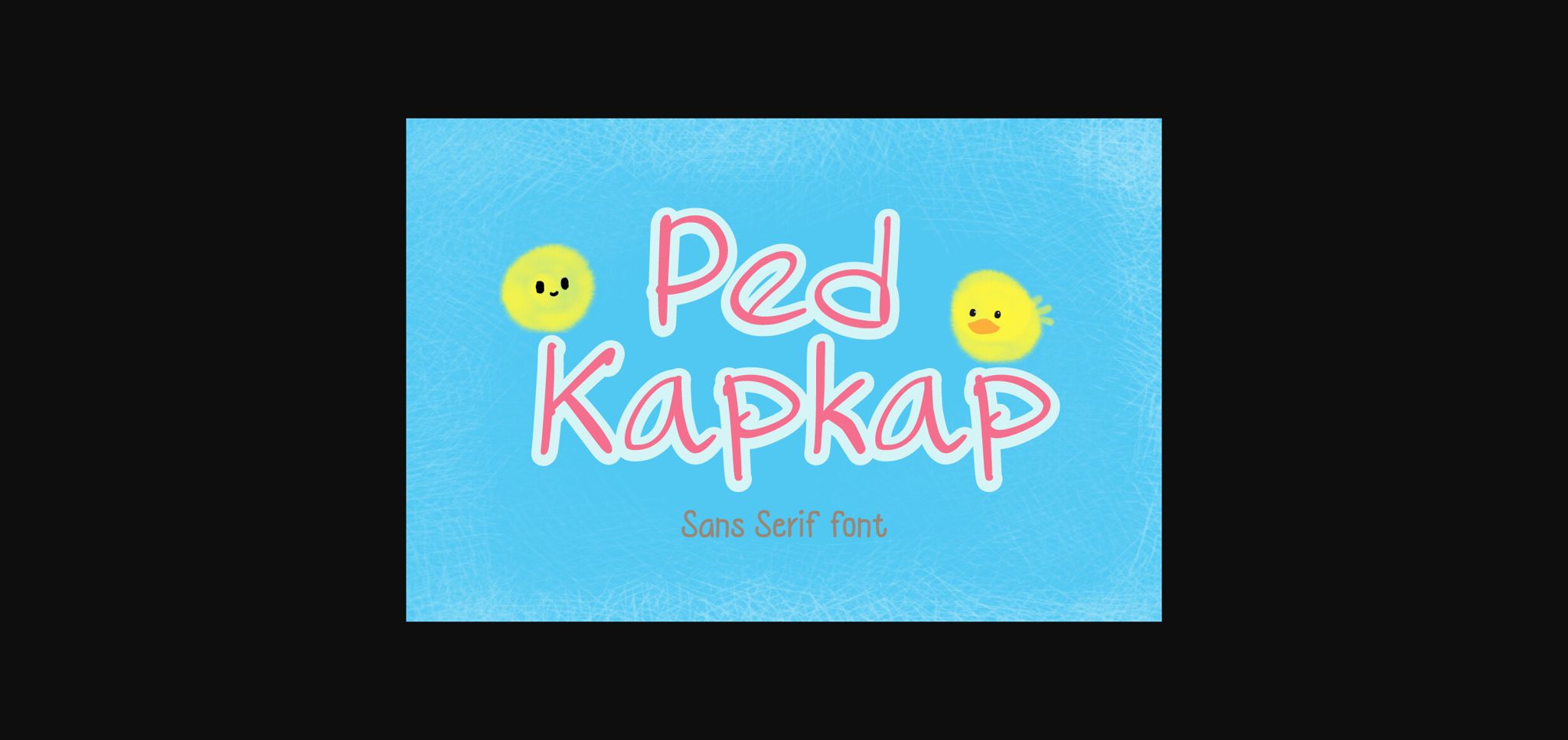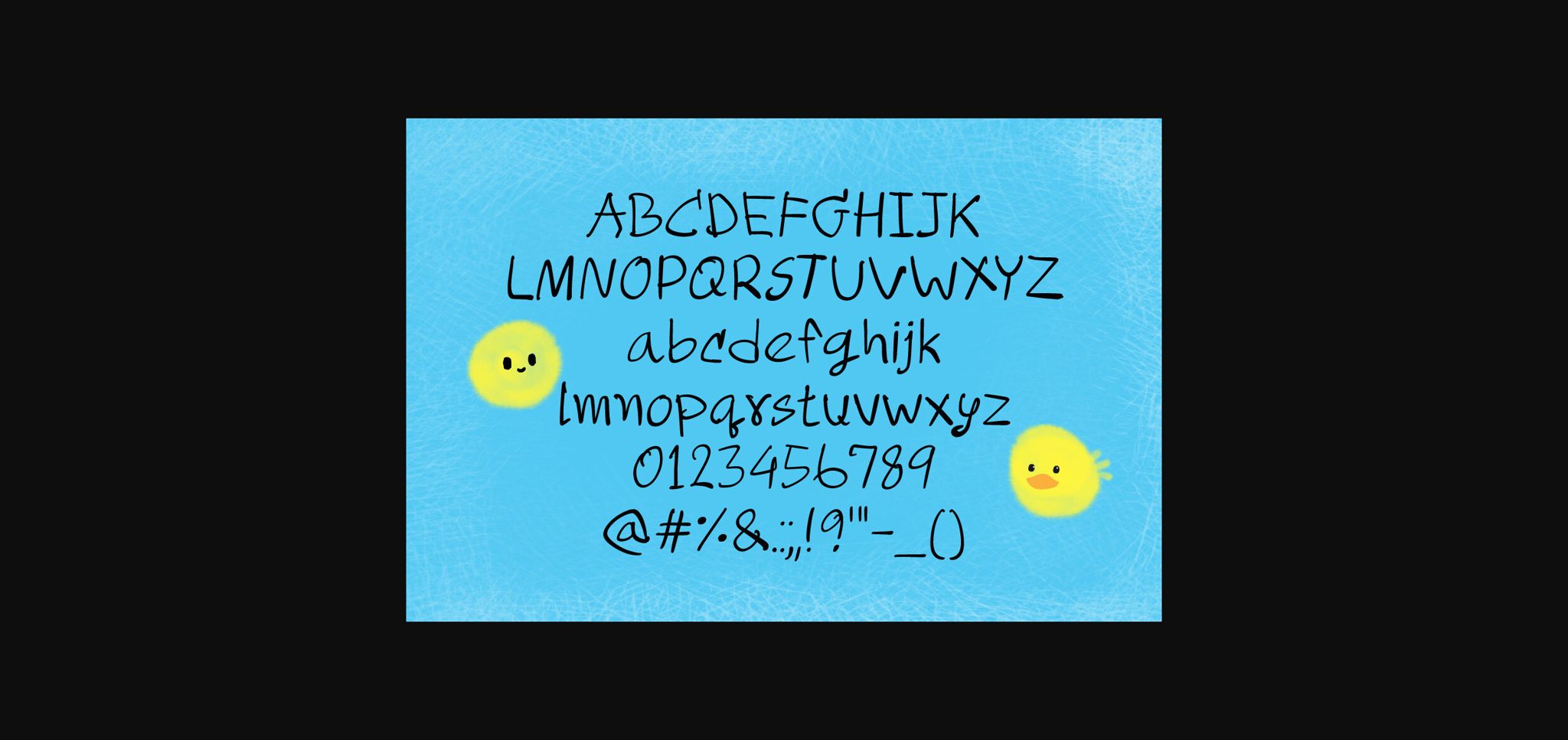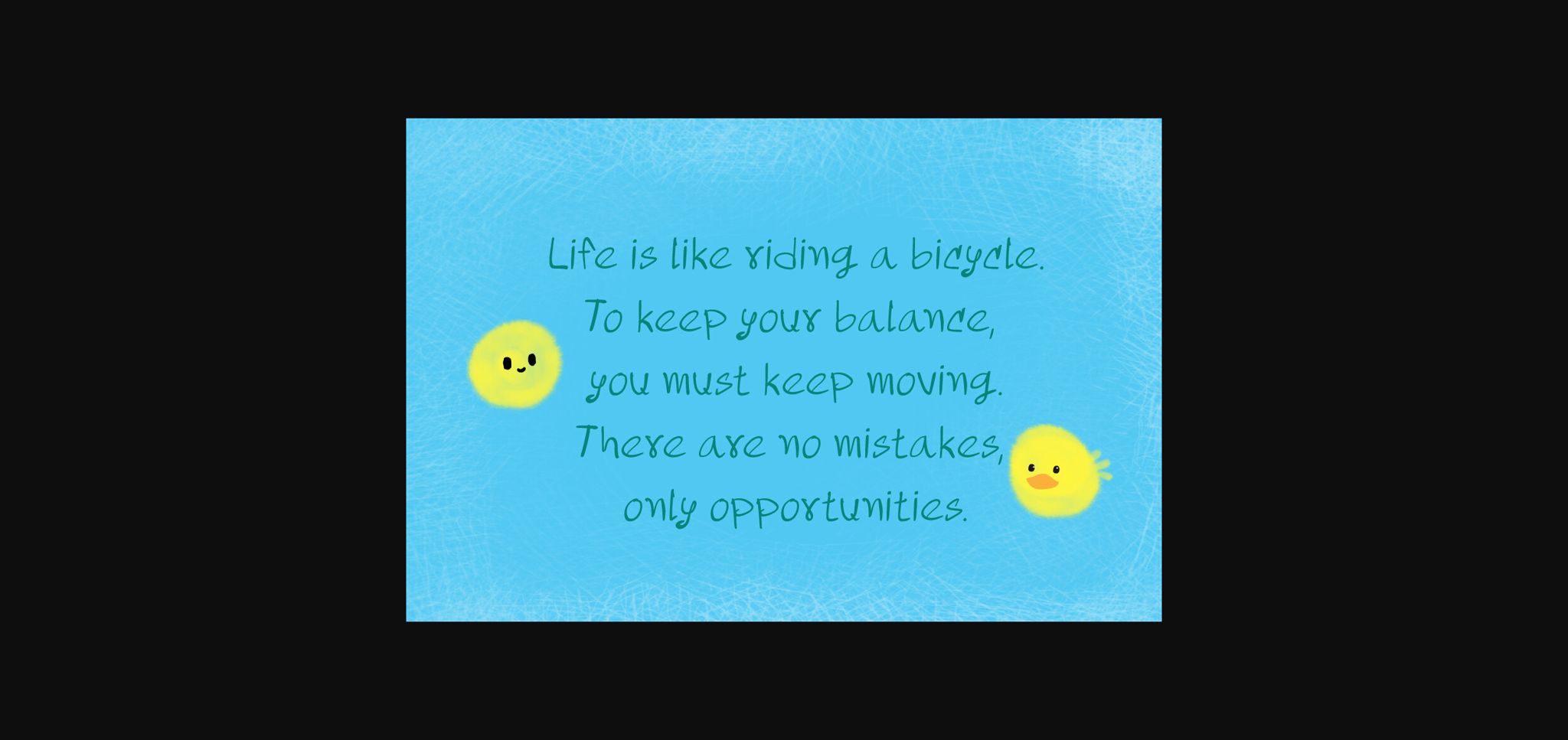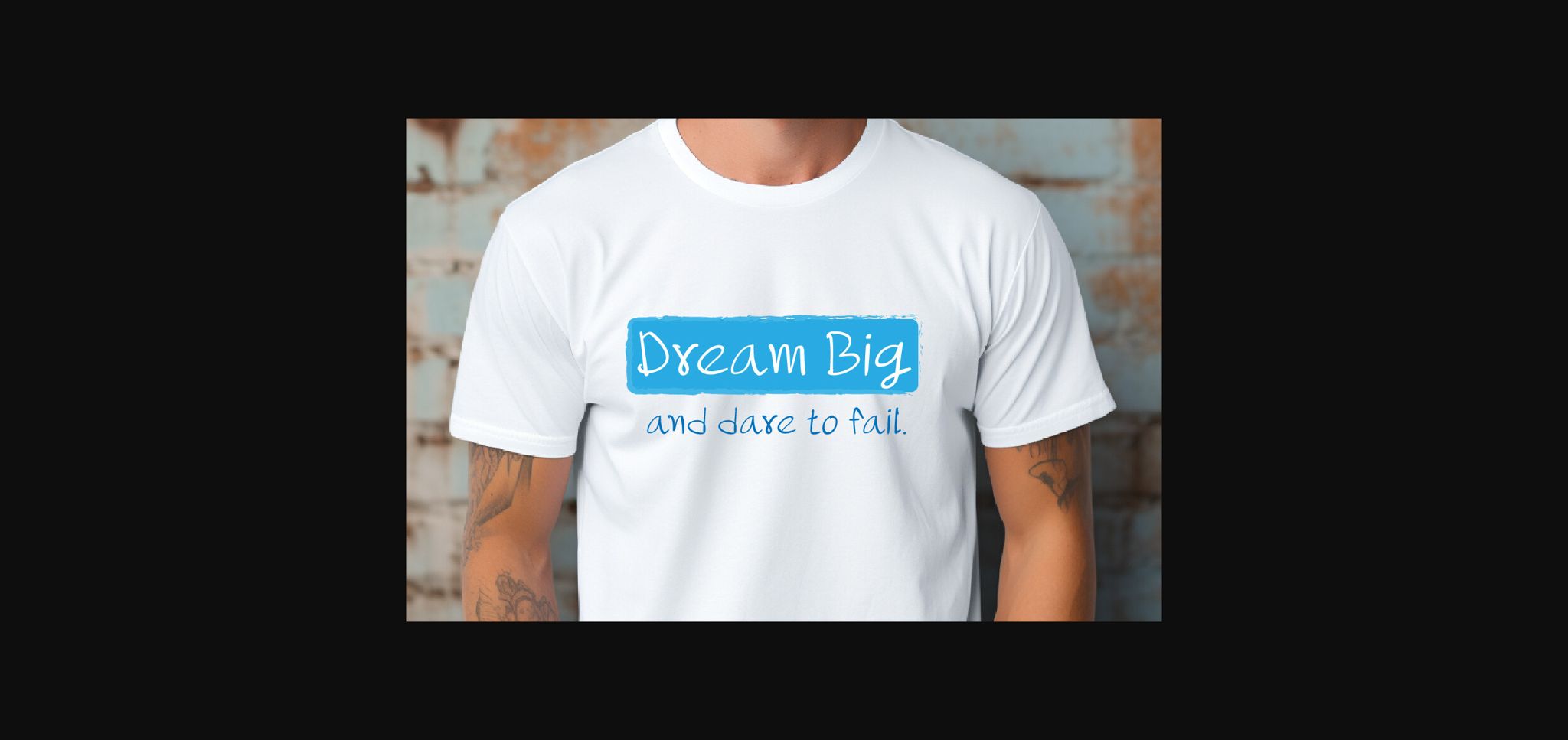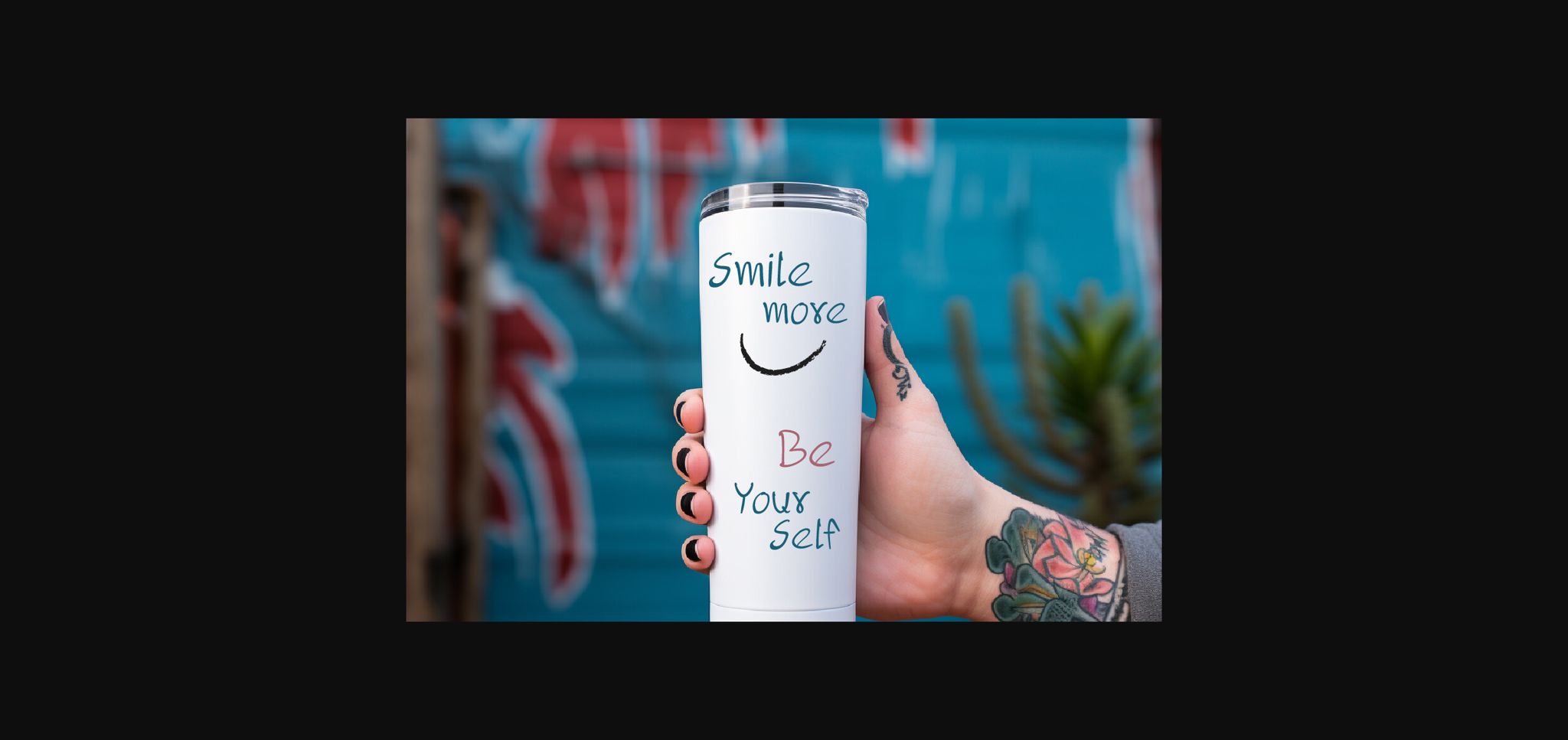
Ped Kapkap Font
About Ped Kapkap Font
Ped Kapkap is a quirky and playful font. It’s an informal style and casual vibe. It would be awesome to your fun projects or diary planner, on wedding invitations, thank you cards, quotes, greeting cards, party decorations, invitations, Fall, Halloween, Christmas, posters, blogs, clothing, child-related designs, greeting cards, social media posts posters, blogs, clothing, and other designs or anything that needs a relaxed touch.